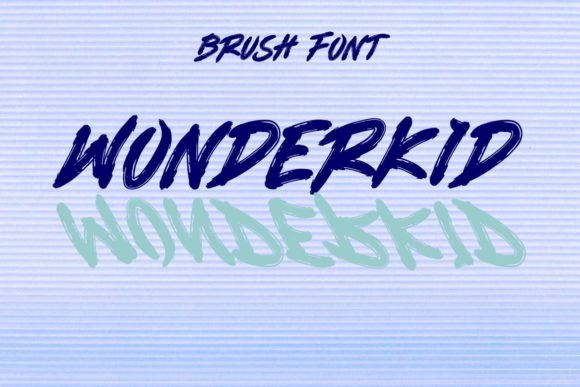
Experience the Enchantment of Wonderkid: A Script Font That Casts a Spell on Your Designs
Journey into the realm of captivating typography with Wonderkid, a script font that's as enchanting as its name suggests. Its whimsical strokes and charismatic curves will infuse your designs with a touch of magic, leaving a lasting impression on your audience.
With Wonderkid, you'll unlock a world of creative possibilities. Its enchanting essence effortlessly adds a dash of enchantment to any project, whether it's a captivating logo, an alluring poster, or an enchanting invitation. Let your imagination soar and watch as Wonderkid transforms your words into captivating works of art.
Let Wonderkid take center stage as the star of your designs. Its magical aura will instantly captivate your audience, drawing them into the captivating world you've created. Its carefully crafted characters, rich with character and personality, will ensure that your message shines with brilliance and leaves an unforgettable mark.
Unleash the versatility of Wonderkid and explore its boundless creative potential. Its ability to adapt seamlessly to various backgrounds and contexts makes it an indispensable tool for designers seeking to create captivating visuals. Whether you're working on busy, vibrant layouts or crafting elegant standalone headlines, Wonderkid effortlessly blends in, enhancing your designs with its enchanting charm.
Dive into the depths of Wonderkid's versatility and discover a font that effortlessly elevates any project it graces. Its captivating curves and enchanting strokes seamlessly adapt to diverse design styles, transforming ordinary concepts into extraordinary masterpieces. From whimsical illustrations to sophisticated branding, Wonderkid's magical touch adds a touch of enchantment to every creative endeavor.